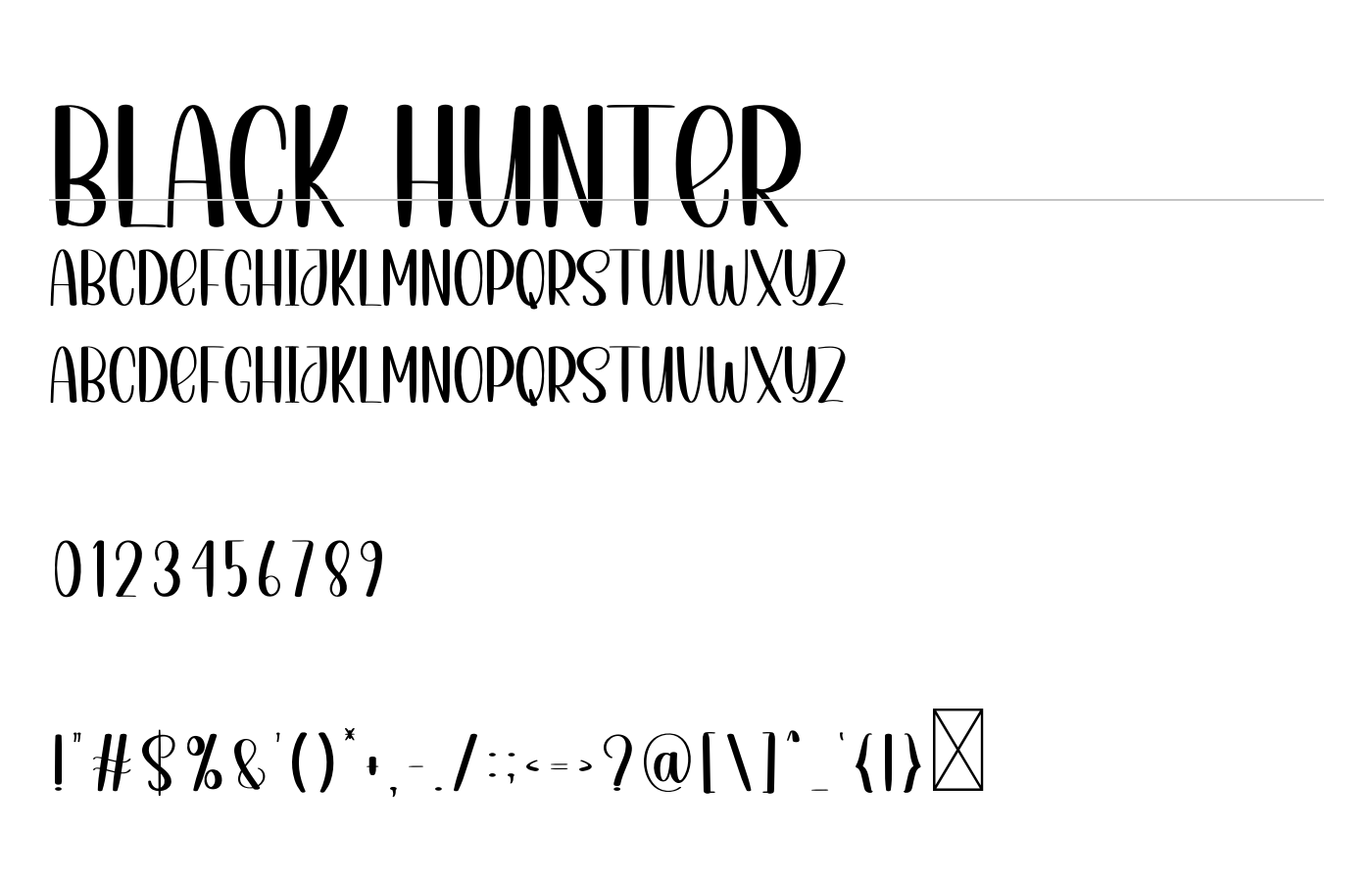
Black Hunter is a whimsical and tall sans-serif font with a playful, hand-drawn feel that features narrow letterforms and a mix of straight and curved strokes. Its charming style conveys creativity and friendliness, making it ideal for use in logos, posters, and playful branding where a casual yet distinctive look is desired. This font works best in display settings where its unique personality can shine.
Black Hunter Font
About Black Hunter Font